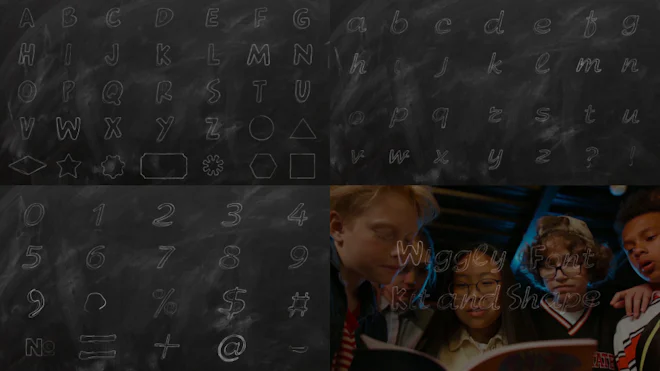
This After Effects template features a collection of animated letters, numbers, symbols, and geometric shapes in scribble style. Great way to create your titles, lower thirds, footnotes, and more. Use these elements to improve your work. Get it now! Available in HD. No plugins are required. A video tutorial is included in the package.